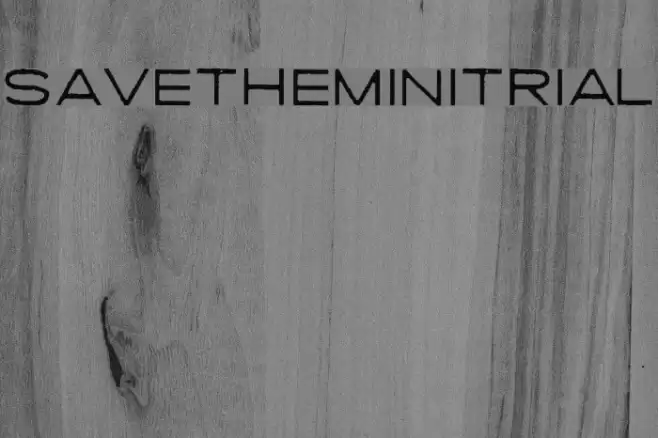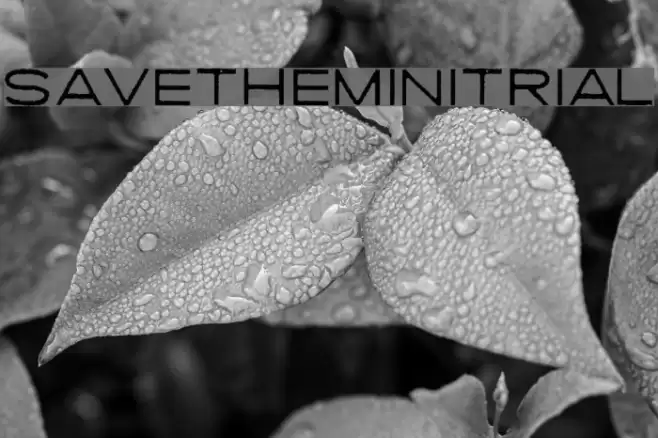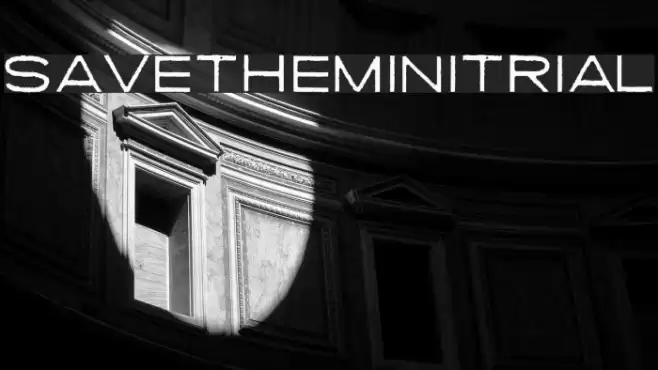
SAVETHEMINI-TRIAL Font
SAVETHEMINI-TRIAL Description
This font features a unique, slightly distressed appearance with a modern twist. The uppercase and lowercase letters maintain a consistent style, with a subtle rough texture that adds character and depth. The strokes are relatively uniform, providing a balanced look that is both clean and edgy. The font's design is versatile, making it suitable for a variety of creative projects. Its distinct style can capture attention while remaining legible, making it ideal for headlines and branding. The special characters are designed to match the overall aesthetic, ensuring a cohesive look across all text elements.
A modern, distressed font with a clean yet edgy appearance from Uncategorized fonts.
- Proposed Projects: Ideal for branding, posters, album covers, and other creative projects that require a modern and distinctive look.